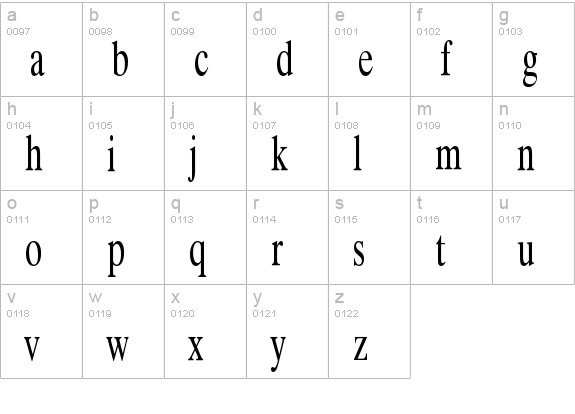
Duke Condensed Normal is the standard, neutral, condensed-width variant in the Duke typeface family \xE2\x80\x94 well suited to general body text, paragraphs, and standard typographic work.
Duke Condensed Normal font is a sleek and modern typeface that exudes sophistication and class. With its clean lines and sharp angles, this font is perfect for all your design needs, from branding to editorial projects. The condensed style of Duke gives it a contemporary edge, making it stand out from the crowd. What's even better is that Duke Condensed Normal font is available for free download at FontsMarket.com. This means you can easily access this elegant font without any cost, making it a valuable addition to your font collection. Whether you're working on a professional project or simply want to elevate your personal designs, Duke Condensed Normal font is the perfect choice. Download it today and see the difference it can make in your work!